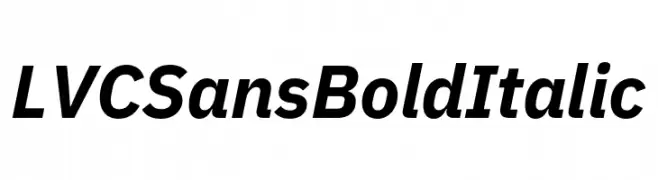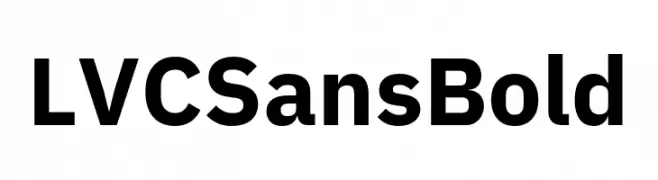
A bold, modern sans-serif font with clean lines and excellent readability.
A bold, oblique sans-serif font with a modern and dynamic style.
A modern, clean sans-serif font with excellent readability.
A bold, modern sans-serif font with clean lines and a robust presence.
A bold, italicized sans-serif font with a modern and dynamic style.